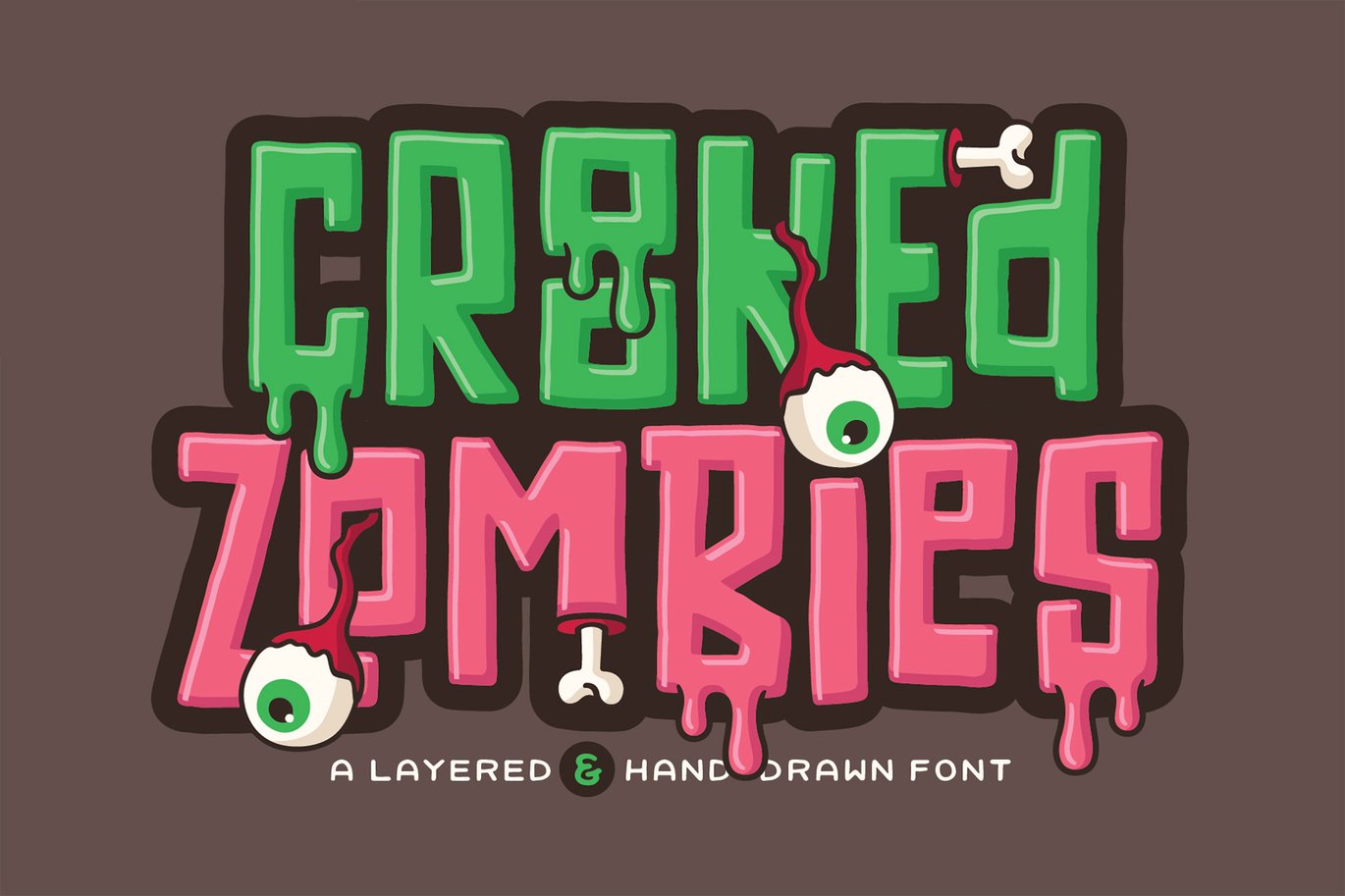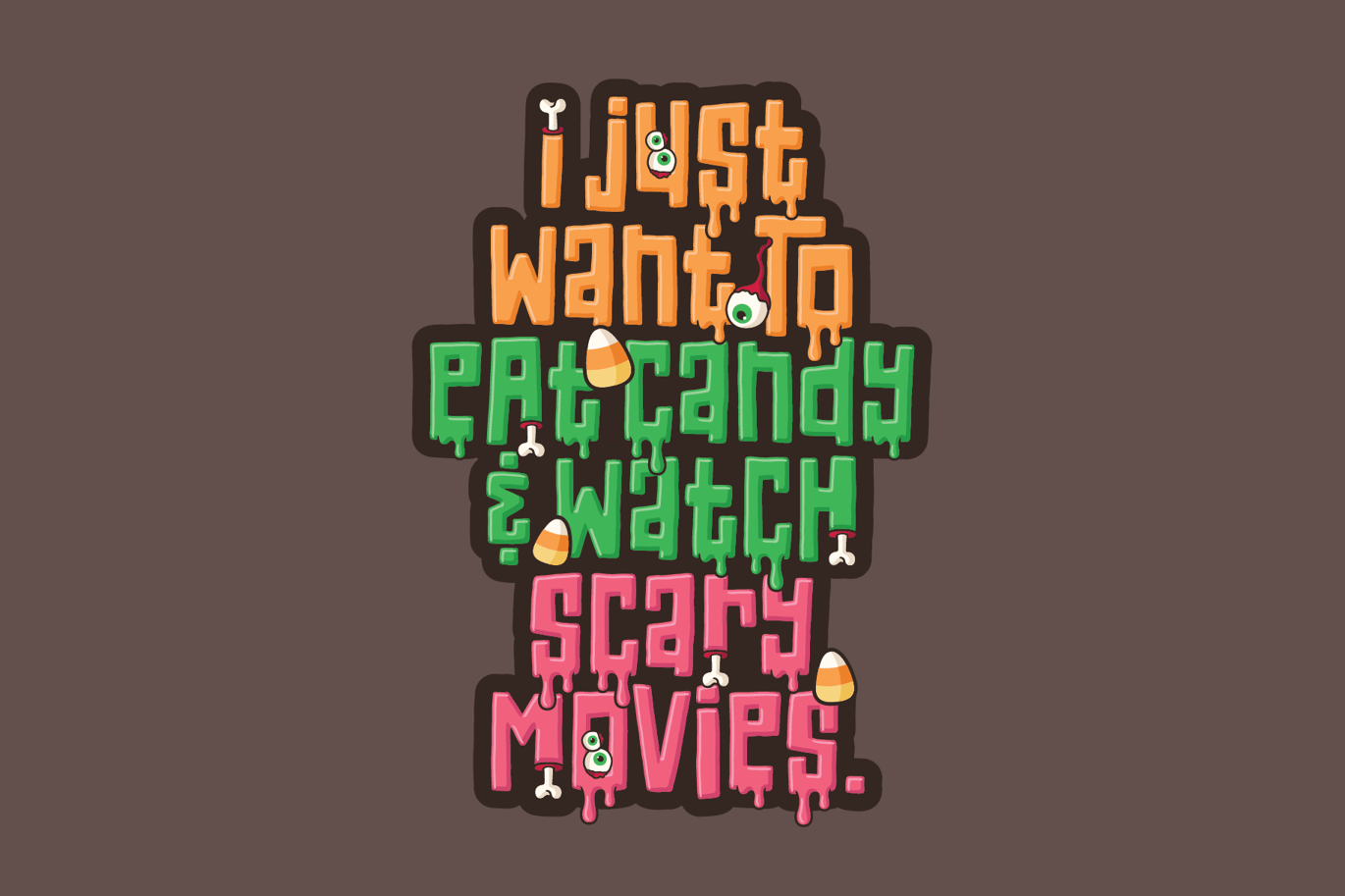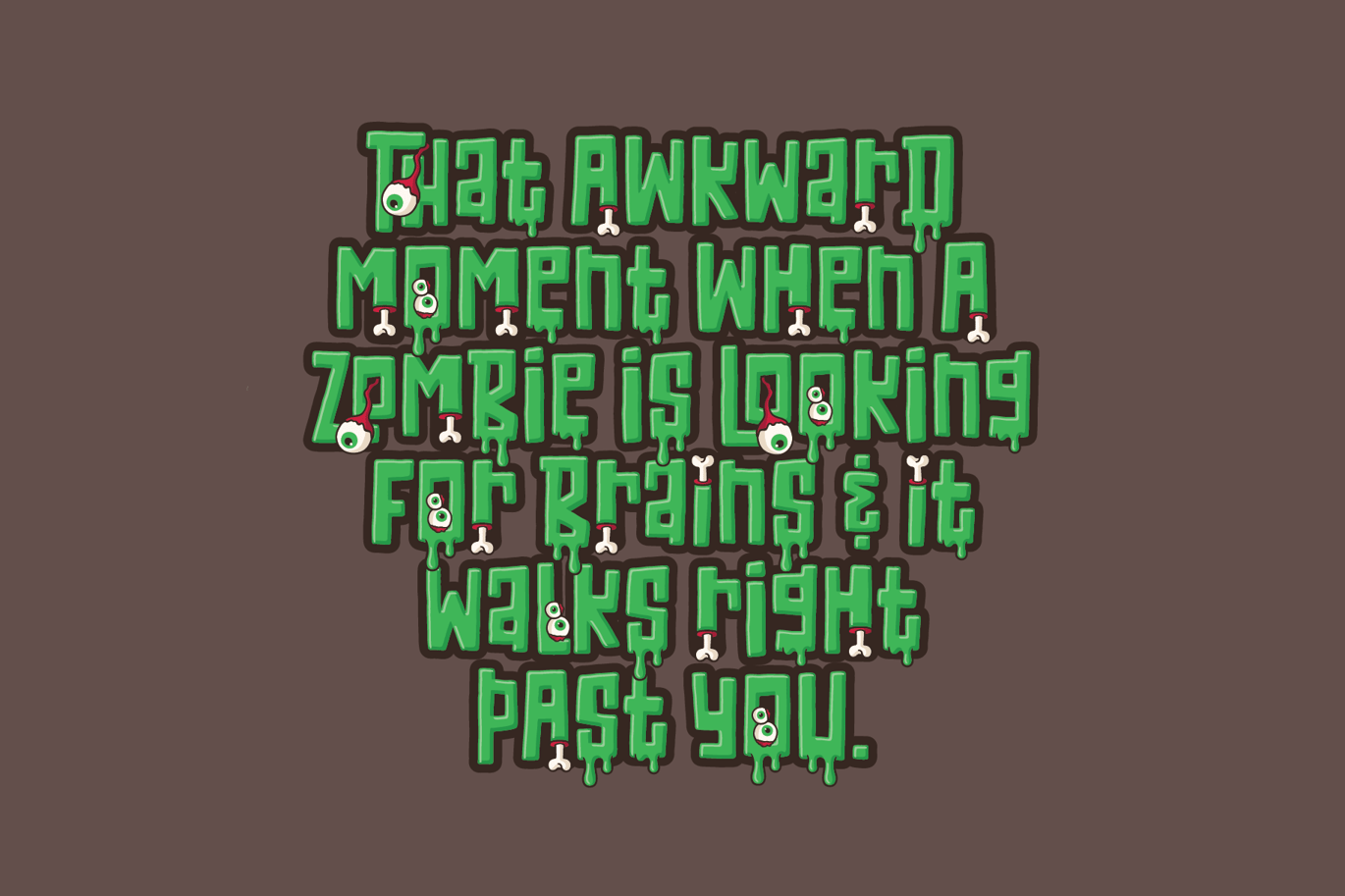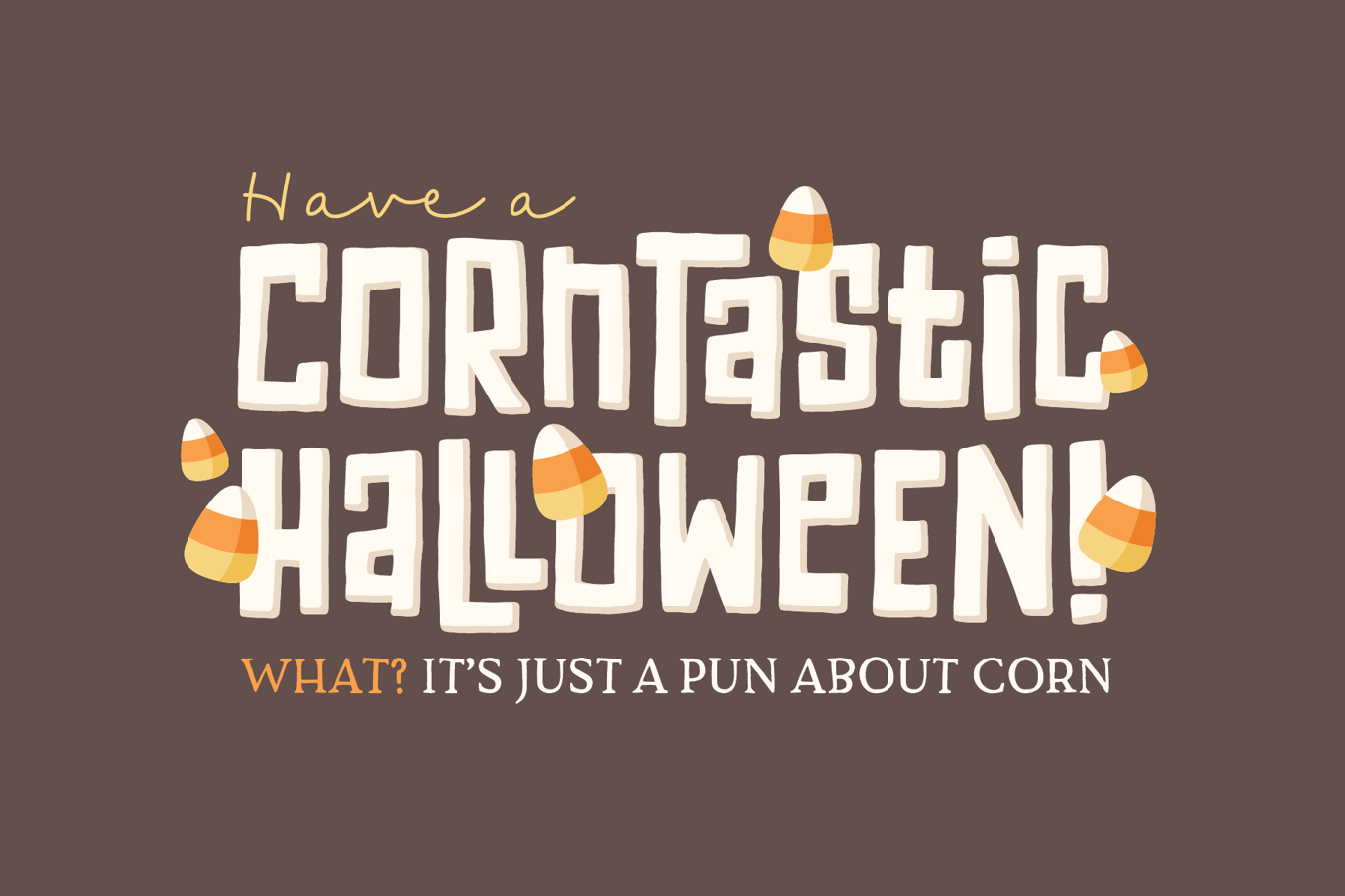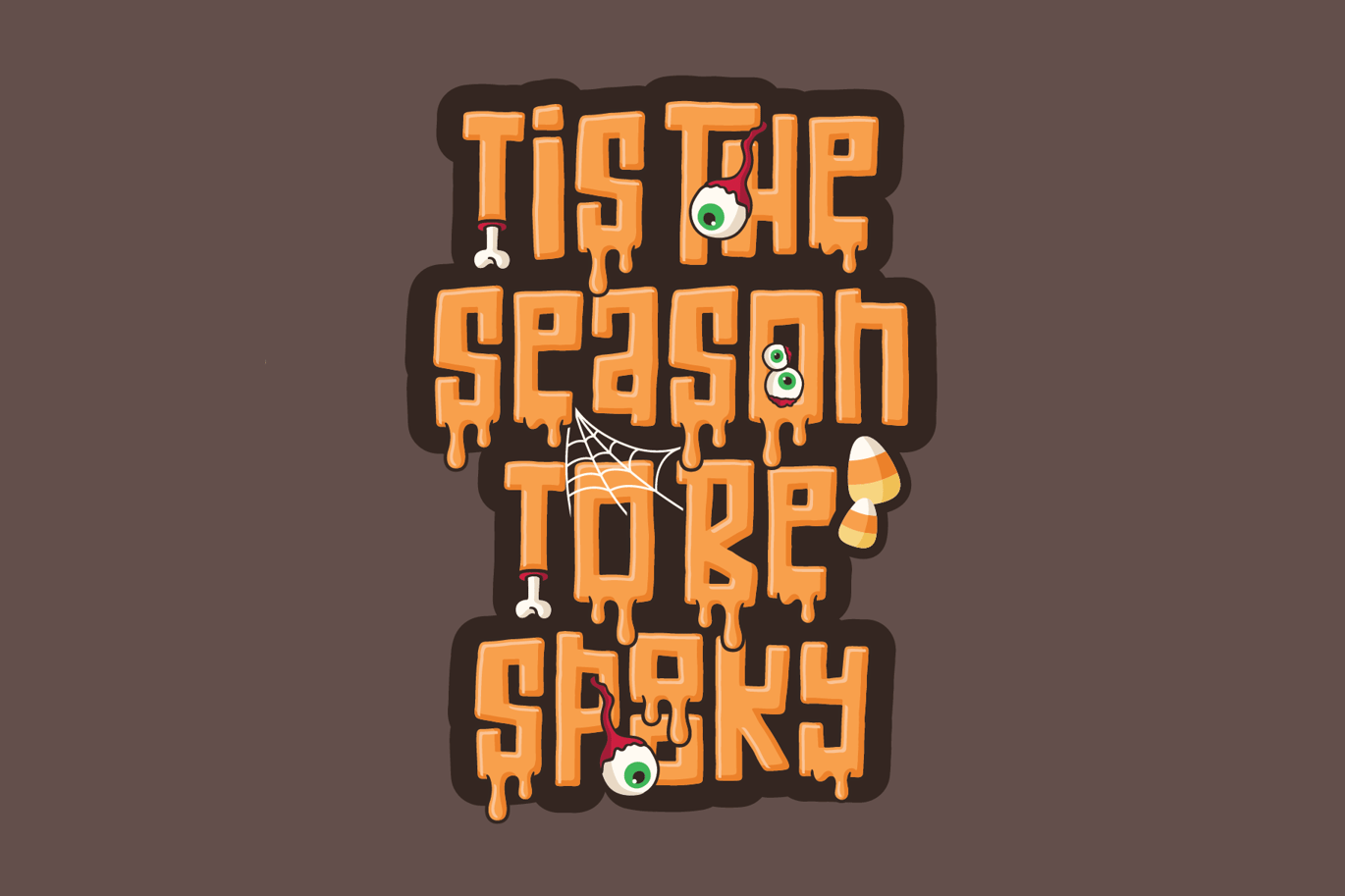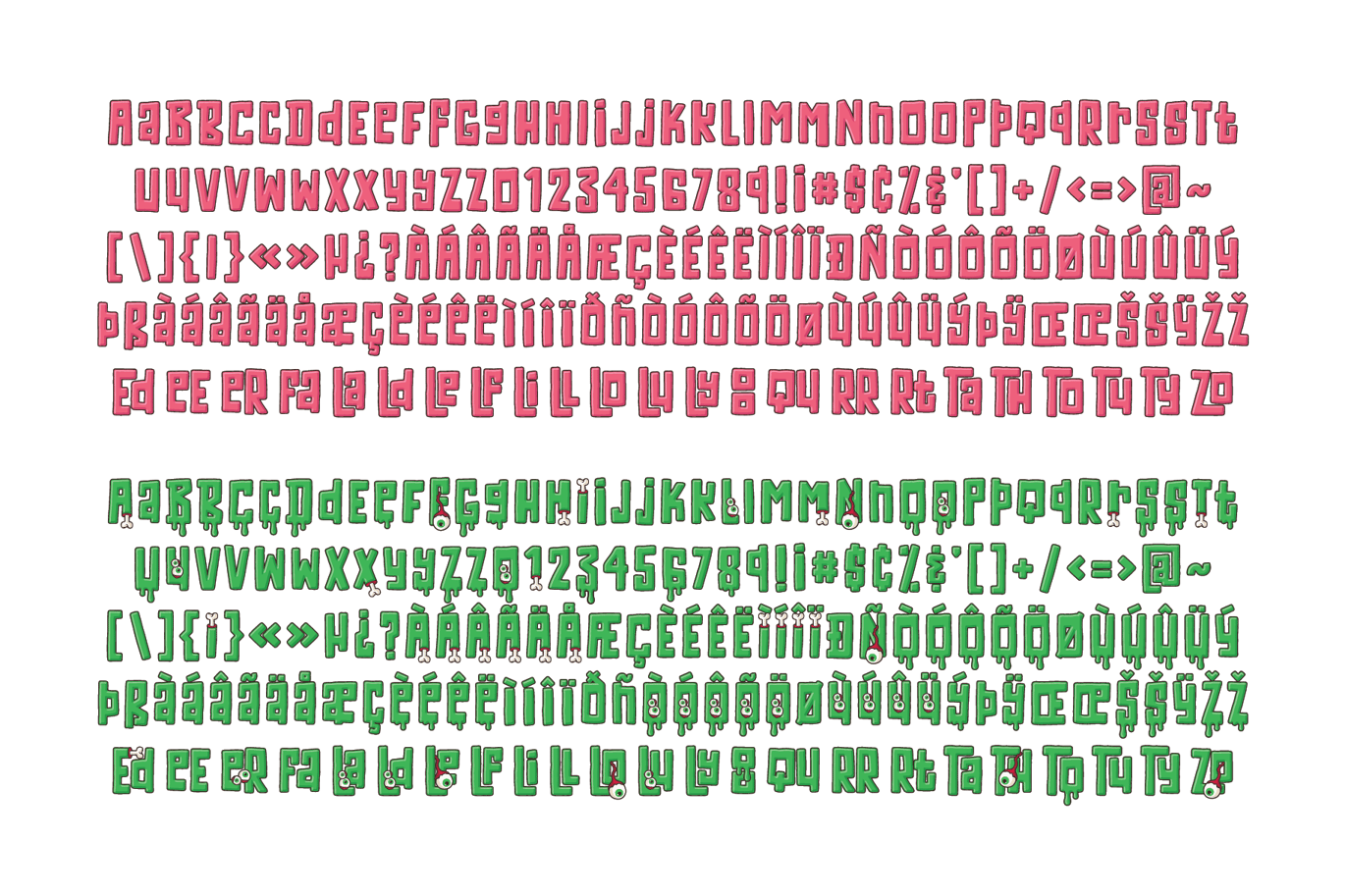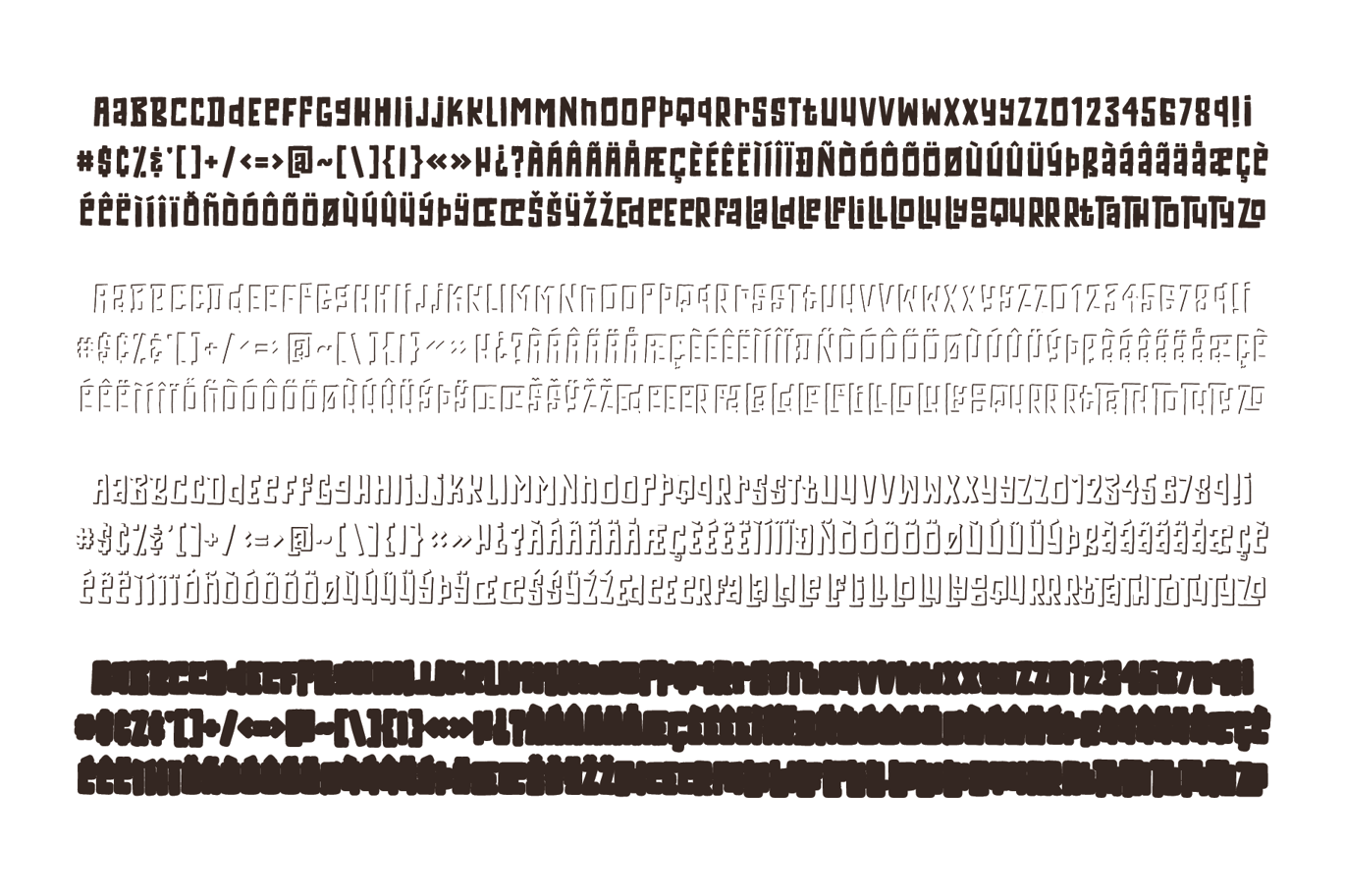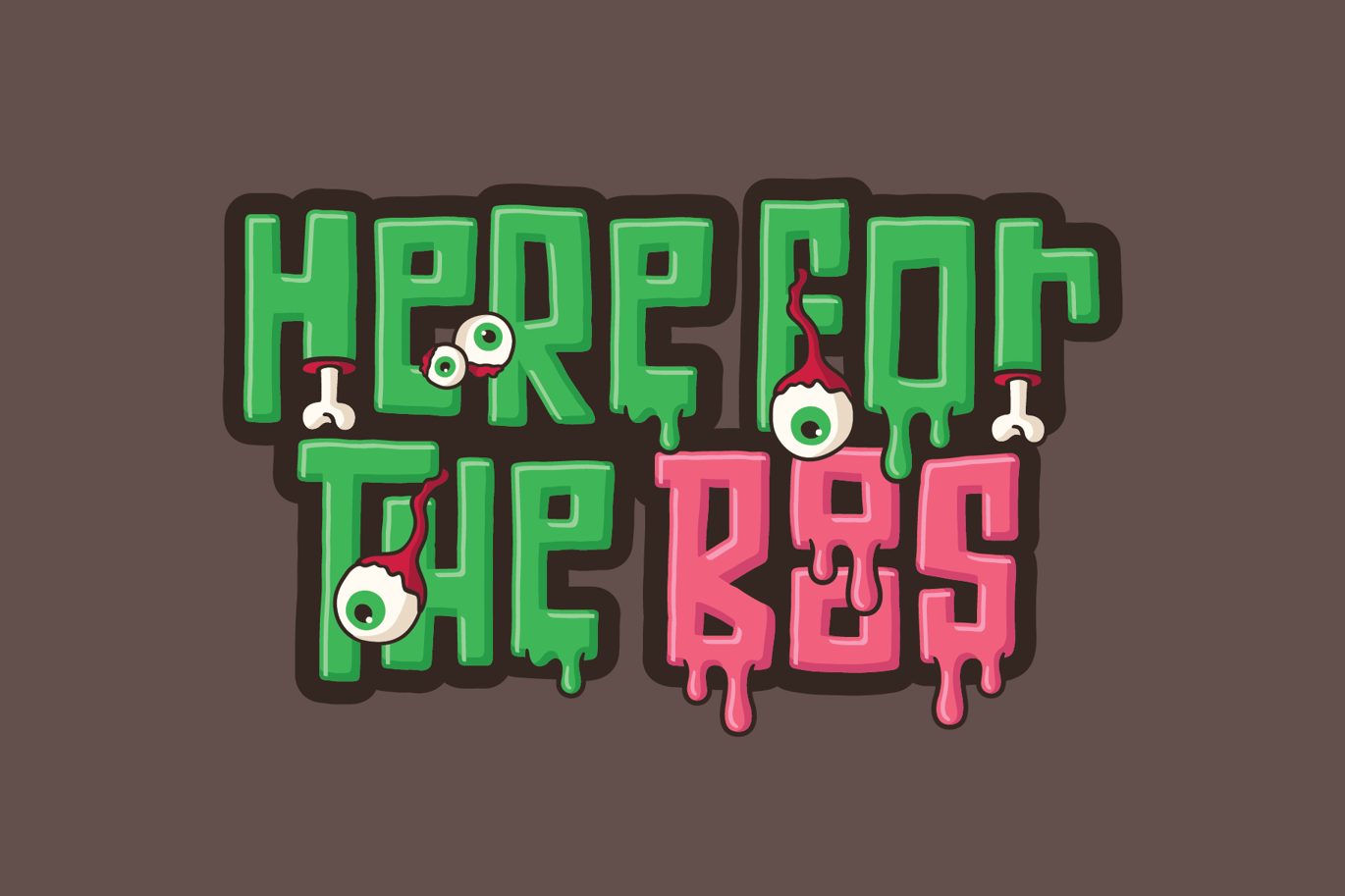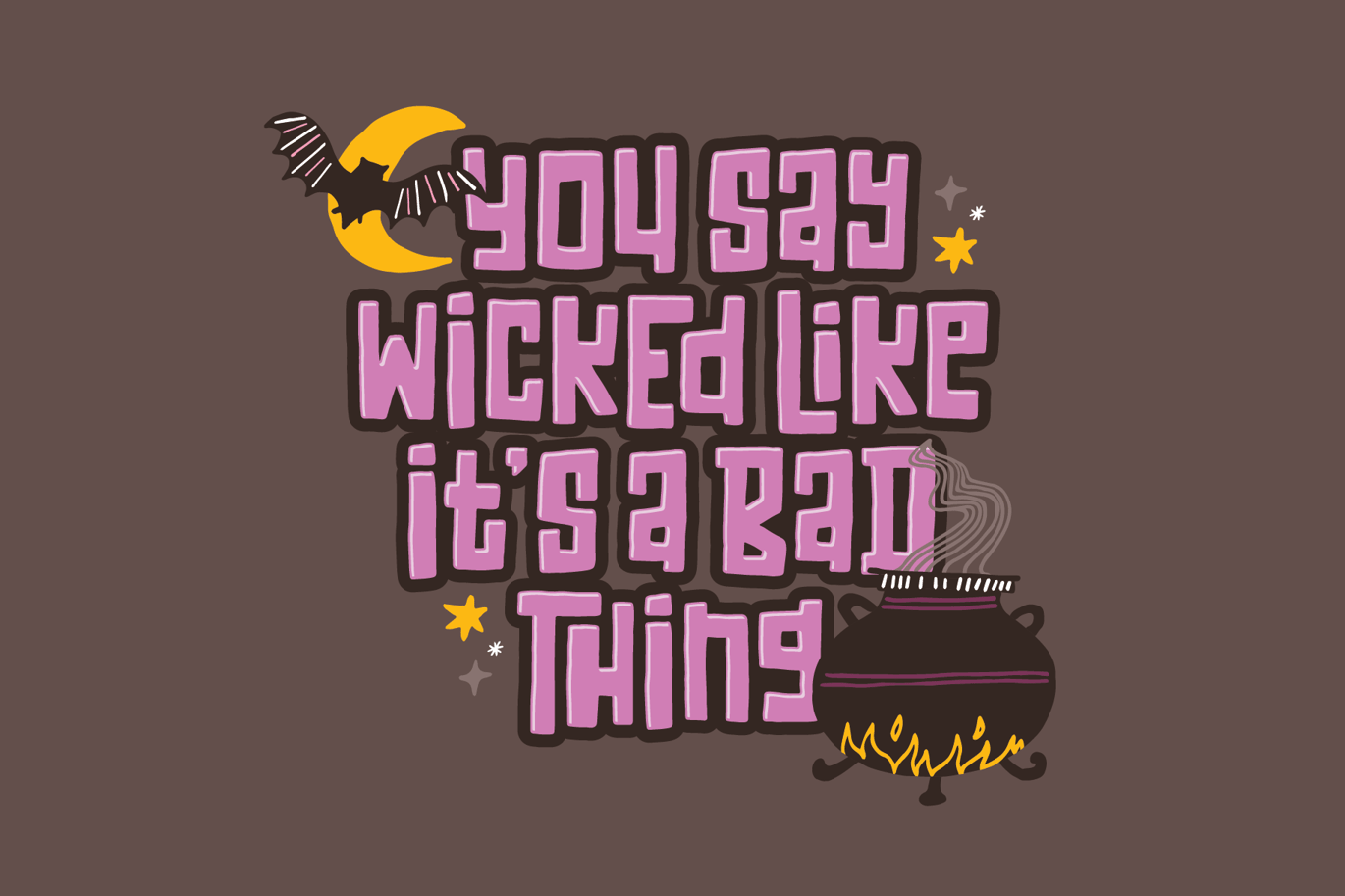
Crooked Zombies Font
Crooked Zombies is an incredibly fun and unique, hand-drawn font. With 4 layers to mix and match plus 2 color font variations (one with zombie doodles and one without), the options are endless! It’s perfect for Halloween designs, but can also be used in a variety of other ways.